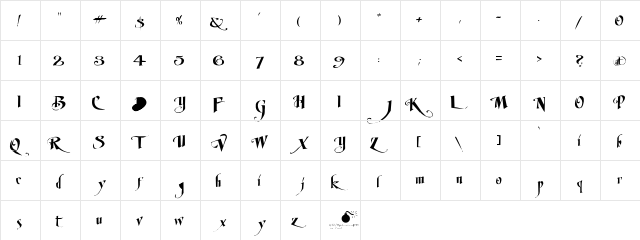
LHF Mirage Bold Regular
| Foundry | Chuck Davis for Letterhead Fonts |
| Designer | Chuck Davis |
Design Context for LHF Mirage Bold Typeface
LHF Mirage Bold is a composed and adaptable typeface that performs quietly and consistently across a wide range of design contexts. Its bold stroke weight gives it real presence on the page.